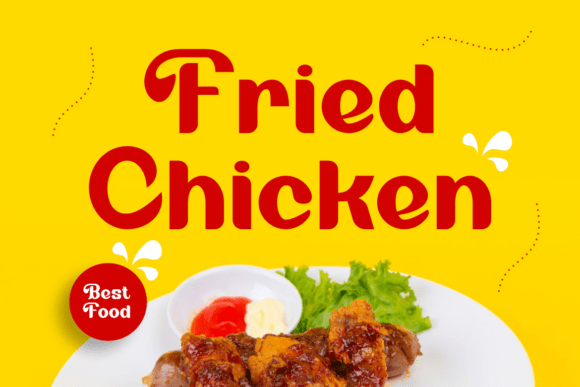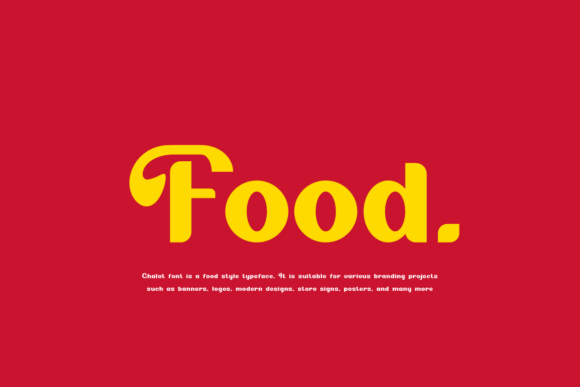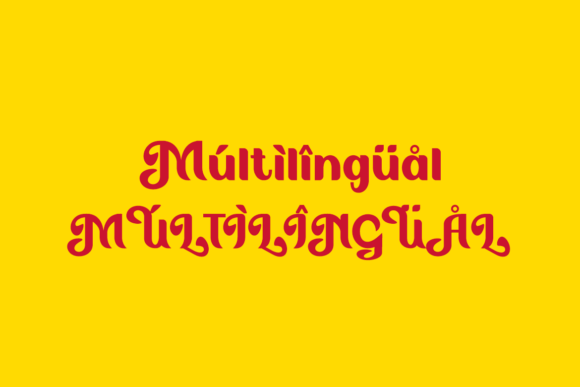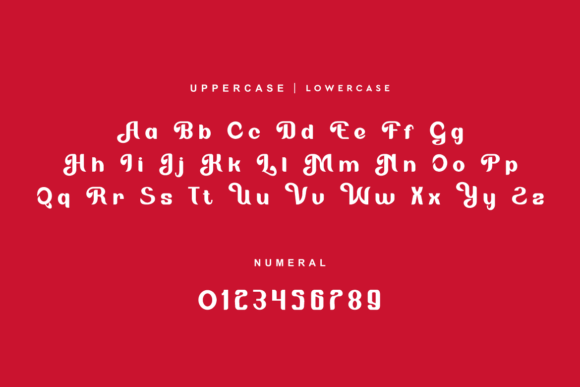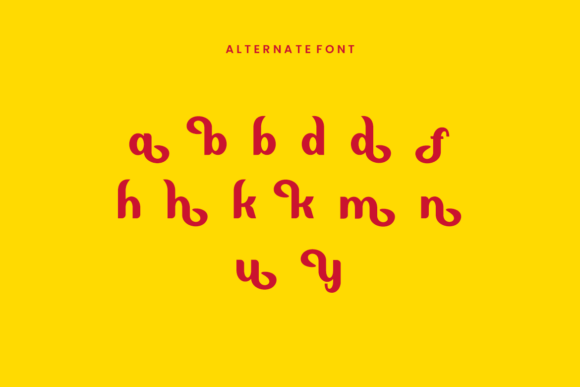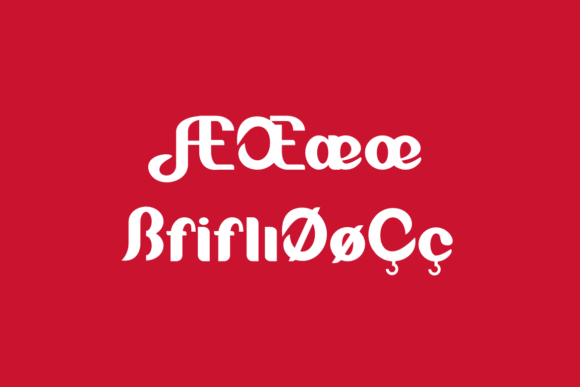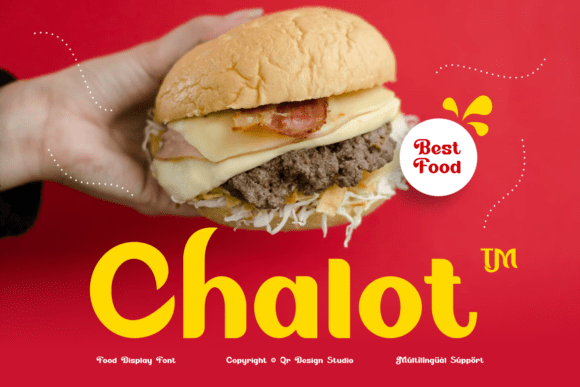
Introducing Chalot Font: The Ultimate Display Typeface for Bold Branding
In the world of typography, a font can make or break a brand’s identity. A well-crafted font can elevate a brand’s visual appeal, convey its message, and leave a lasting impression on its audience. If you’re a designer, craftsperson, or entrepreneur looking for a bold and authentic display typeface, look no further than Chalot Font. In this article, we’ll dive into the features, benefits, and uses of Chalot Font, and explore why it’s the perfect choice for your branding projects.
What is Chalot Font?
Chalot Font is a bold and authentic display typeface designed to make a statement. Its unique and elegant design makes it perfect for various branding projects, such as logos, food designs, and more. Whether you’re creating a brand identity, packaging, or advertising materials, Chalot Font is sure to grab attention and leave a lasting impression.
Key Features of Chalot Font
• Bold and Authentic Design: Chalot Font boasts a bold and authentic design that stands out beautifully in a wide range of contexts.
• Multilingual Support: Chalot Font includes multilingual support, making it a versatile choice for global brands.
Benefits of Using Chalot Font
So, why choose Chalot Font for your branding projects? Here are just a few benefits:
• Instant Recognition: Chalot Font’s bold design ensures instant recognition and attention-grabbing headlines.
• Versatility: Chalot Font is perfect for various branding projects, from logos and packaging to advertising and marketing materials.
• Unique Identity: Chalot Font helps create a unique and memorable brand identity that sets you apart from the competition.
Use Cases for Chalot Font
Chalot Font is an incredibly versatile typeface that can be used in a wide range of contexts. Here are some use cases to get you started:
• Logo Design: Create a bold and memorable logo that makes a statement.
• Food Design: Use Chalot Font to create eye-catching packaging and branding for food products.
• Advertising and Marketing: Grab attention with bold and attention-grabbing headlines in your advertising and marketing materials.
• Branding and Identity: Establish a unique and memorable brand identity with Chalot Font.
Tips for Using Chalot Font
To get the most out of Chalot Font, here are some tips to keep in mind:
• Experiment with Sizes: Chalot Font looks great in various sizes, from large headlines to smaller text.
• Play with Colors: Chalot Font comes alive with bold and vibrant colors.
• Mix and Match: Combine Chalot Font with other fonts to create a unique and visually appealing typography.
In conclusion, Chalot Font is a bold and authentic display typeface that’s perfect for various branding projects. With its unique design, multilingual support, and versatility, Chalot Font is sure to elevate your brand’s visual appeal and leave a lasting impression on your audience. Whether you’re a designer, craftsperson, or entrepreneur, Chalot Font is a must-have in your typography arsenal.